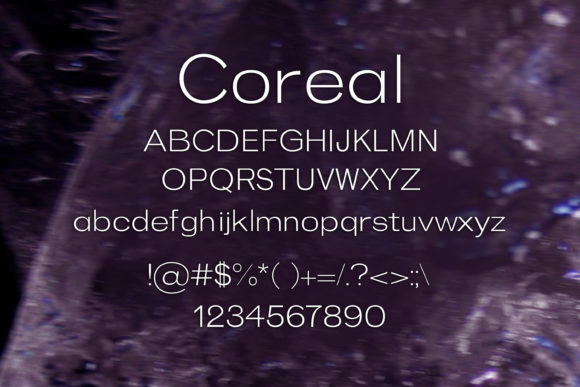
Introducing Coreal Font: A Modern Twist on Traditional Sign Painting
In the world of typography, fonts play a crucial role in conveying messages, expressing creativity, and setting the tone for a brand or design. For designers and crafters, finding the perfect font can be a daunting task, especially when looking for something that combines modernity with a touch of tradition. This is where Coreal Font comes in – a stunning sans serif font that draws inspiration from traditional sign painting, with a modern twist.
The Inspiration Behind Coreal Font
Coreal Font is a beautiful blend of old and new, combining the classic techniques of sign painting with the simplicity and elegance of modern sans serif fonts. The result is a clean and minimal font that exudes a sense of sophistication and versatility. The font’s creator aimed to capture the essence of traditional sign painting, while making it suitable for modern designs and applications.
Key Features of Coreal Font
- Clean and Minimal Design: Coreal Font boasts a sleek and streamlined design, making it perfect for modern designs that require a touch of elegance and sophistication.
- Sans Serif Style: The font’s sans serif style ensures that it remains clean and uncluttered, making it ideal for use in a variety of applications, from digital media to print materials.
- Traditional Sign Painting Inspiration: The font’s inspiration from traditional sign painting gives it a unique character and charm, setting it apart from more generic sans serif fonts.
- Modern Twist: The modern twist on traditional sign painting makes Coreal Font a versatile and contemporary choice for designers and crafters.
Uses of Coreal Font
Coreal Font’s versatility makes it suitable for a wide range of applications, including:
- Branding and Logo Design: The font’s clean and modern design makes it perfect for creating professional and memorable logos.
- Digital Media: Coreal Font is ideal for use in digital media, including social media graphics, website headers, and more.
- Print Materials: The font’s traditional sign painting inspiration makes it a great choice for print materials, such as posters, flyers, and brochures.
- Crafting and DIY Projects: Coreal Font’s unique character makes it a great choice for crafters and DIY enthusiasts looking to add a personal touch to their projects.
Why Choose Coreal Font?
With so many fonts available, why choose Coreal Font? Here are a few reasons:
- Unique Character: Coreal Font’s blend of traditional sign painting and modern sans serif design gives it a unique character that sets it apart from other fonts.
- Versatility: The font’s clean and minimal design makes it suitable for a wide range of applications and industries.
- Ease of Use: Coreal Font is easy to read and use, making it perfect for designers and crafters of all skill levels.
In conclusion, Coreal Font is a stunning sans serif font that combines the best of traditional sign painting with modern design principles. Its clean and minimal design, unique character, and versatility make it a great choice for designers and crafters looking to add a touch of elegance and sophistication to their projects. Whether you’re working on a branding project, digital media, print materials, or crafting and DIY projects, Coreal Font is definitely worth considering.